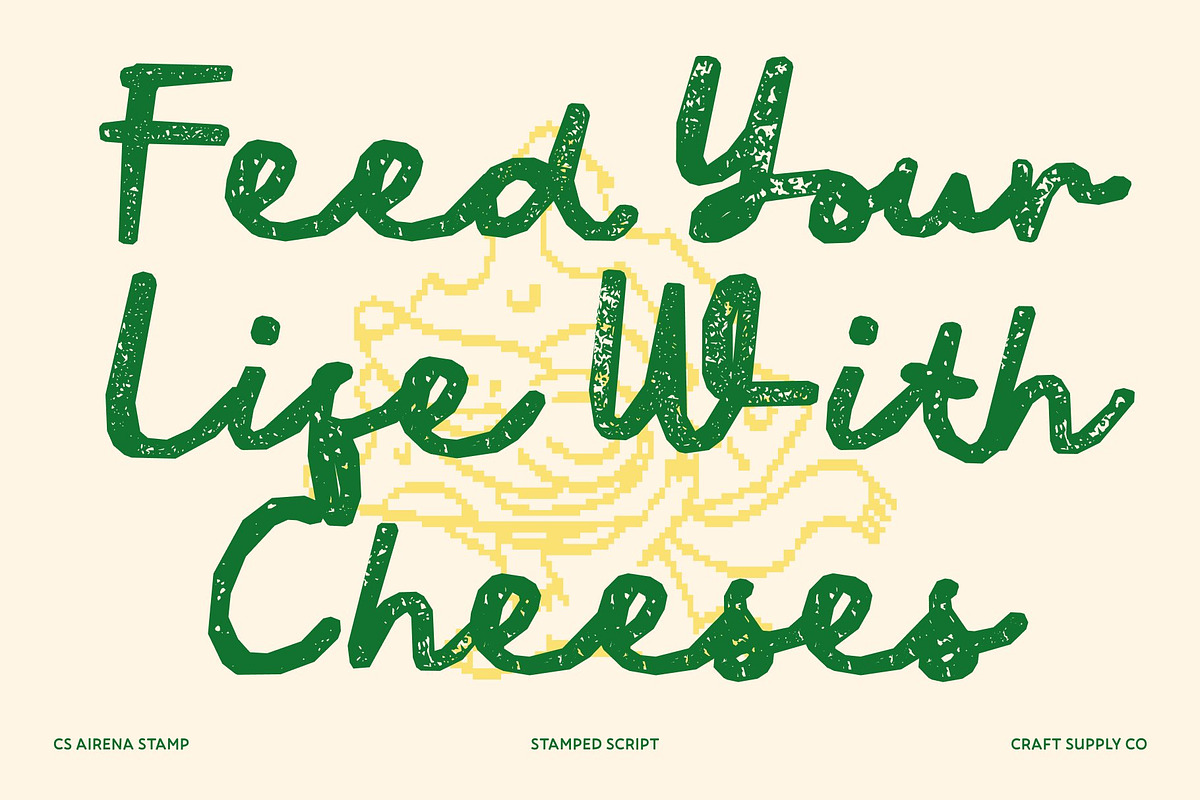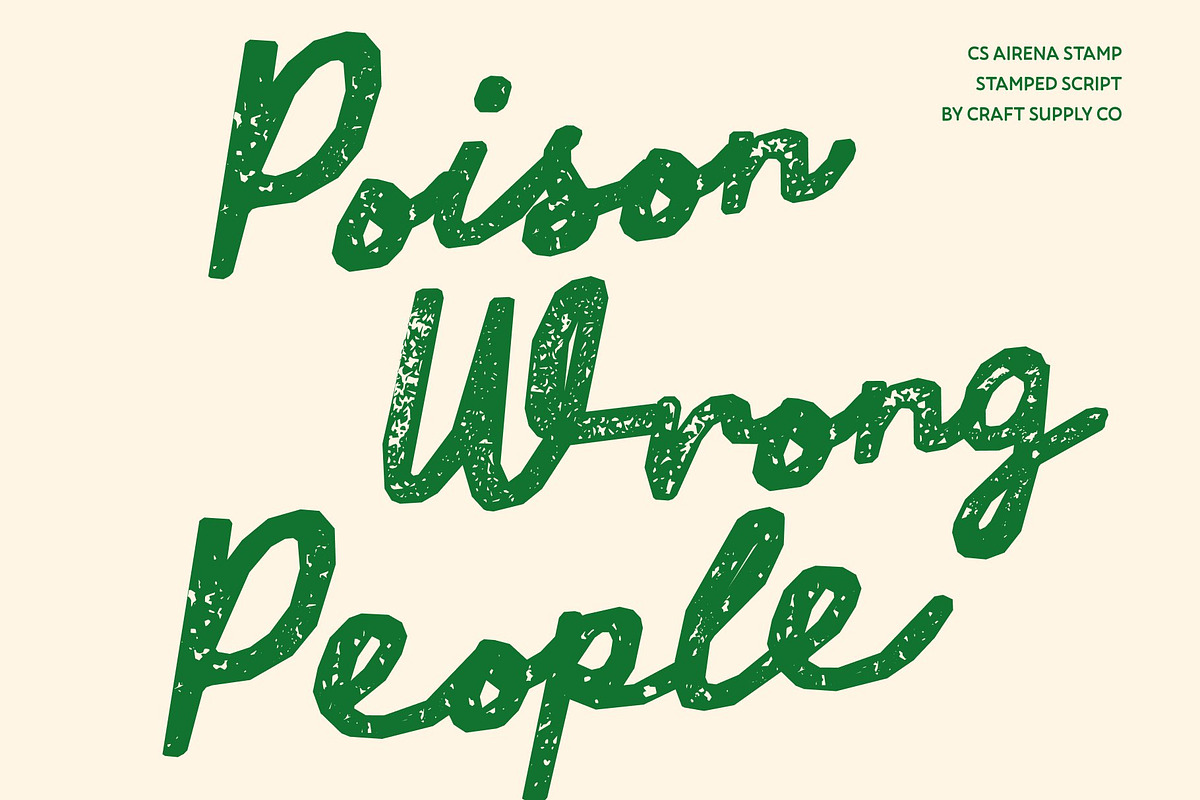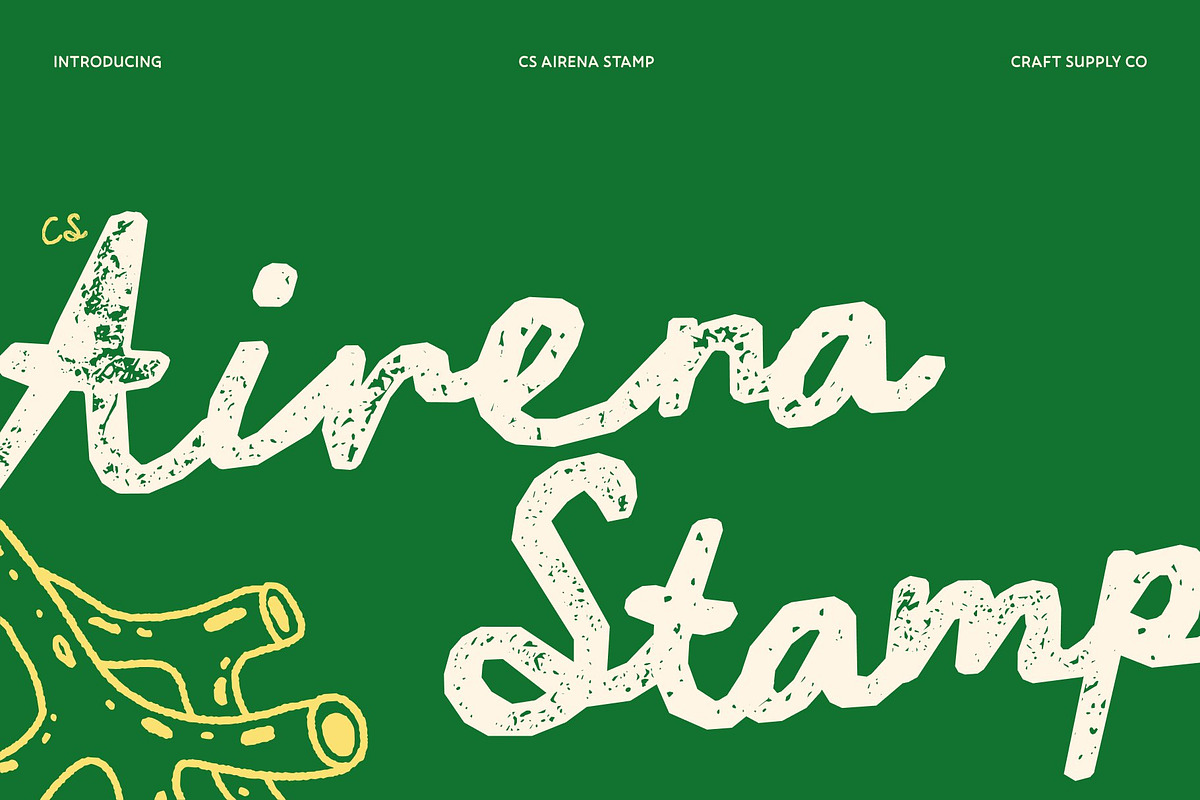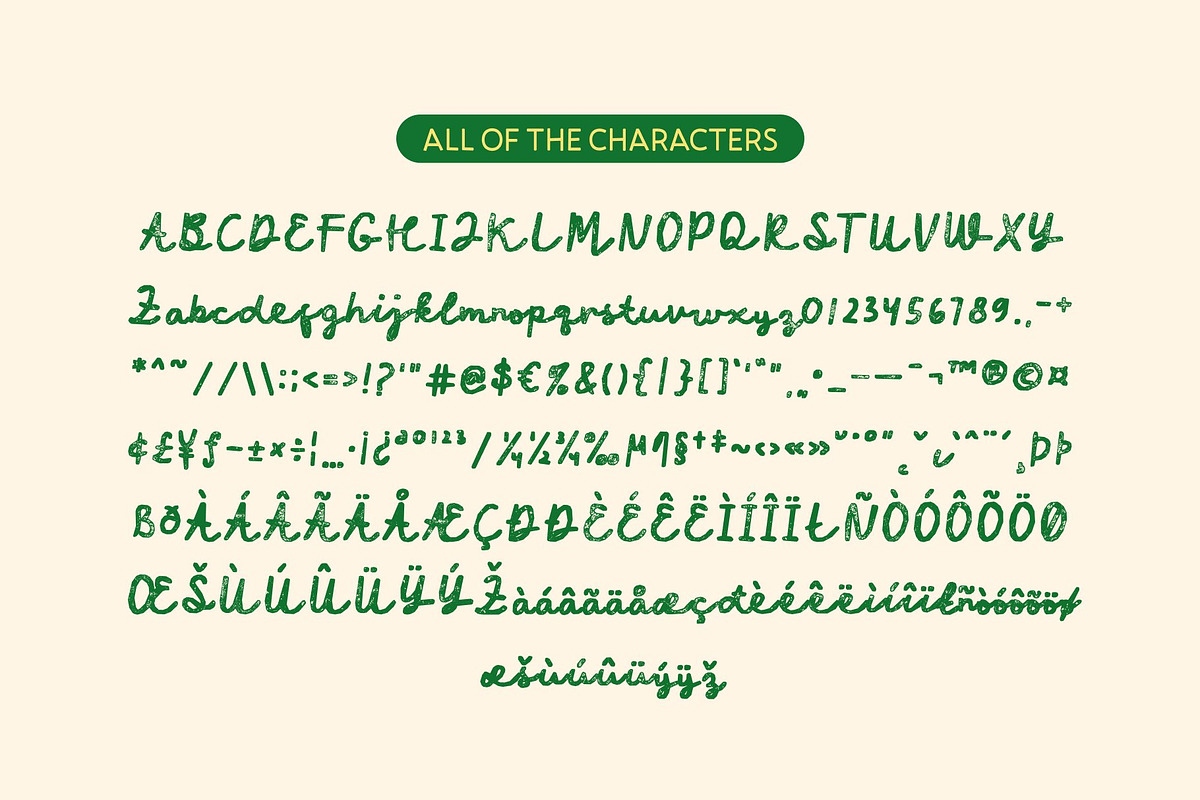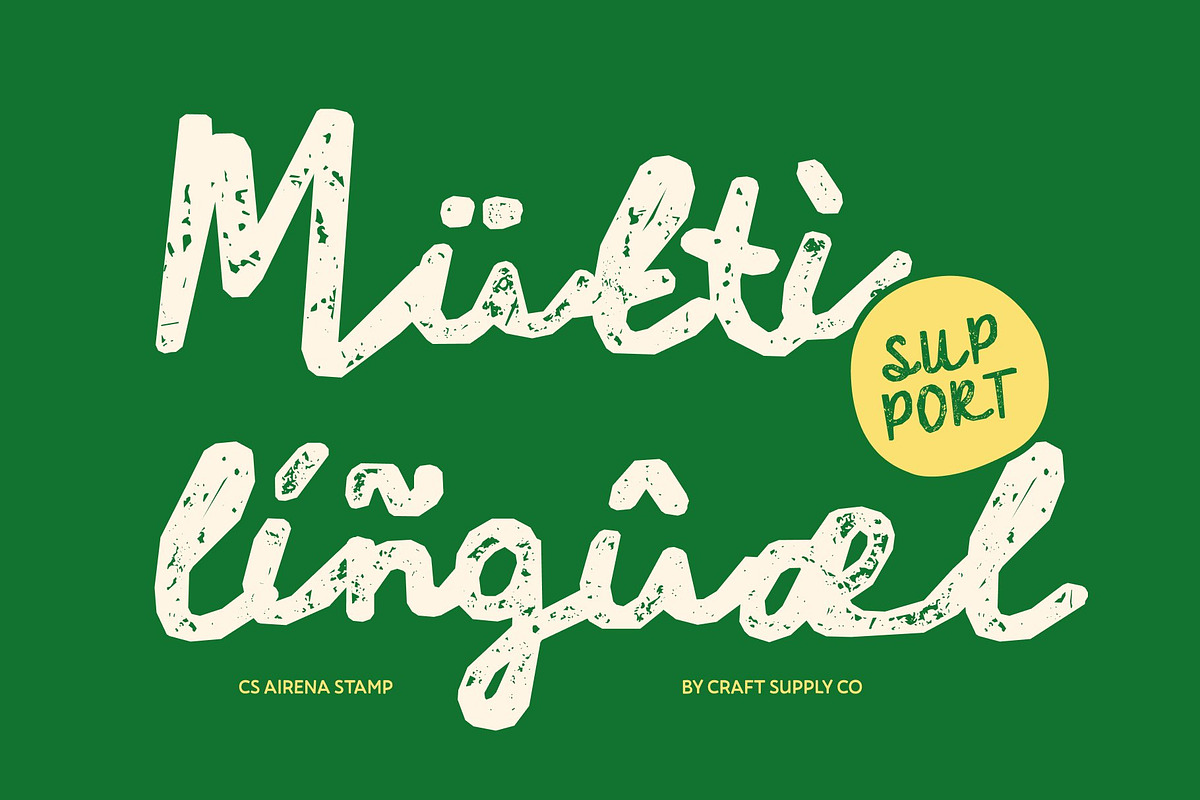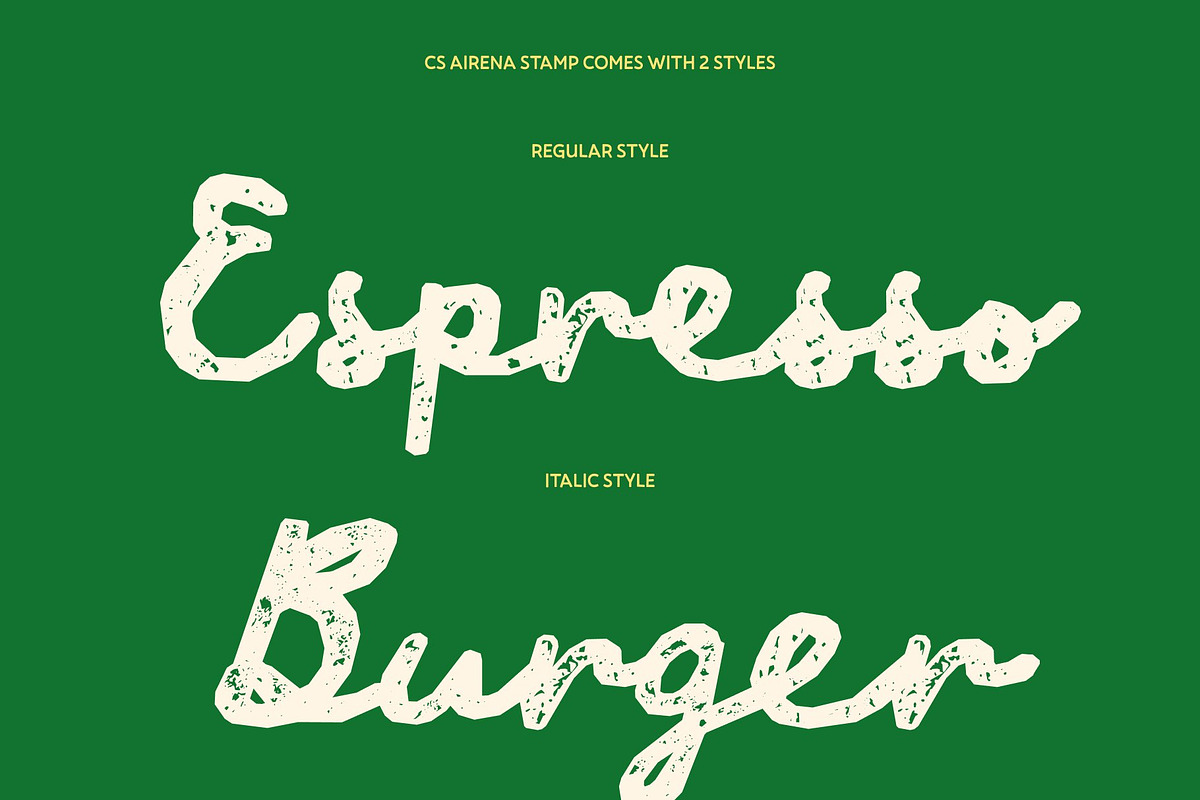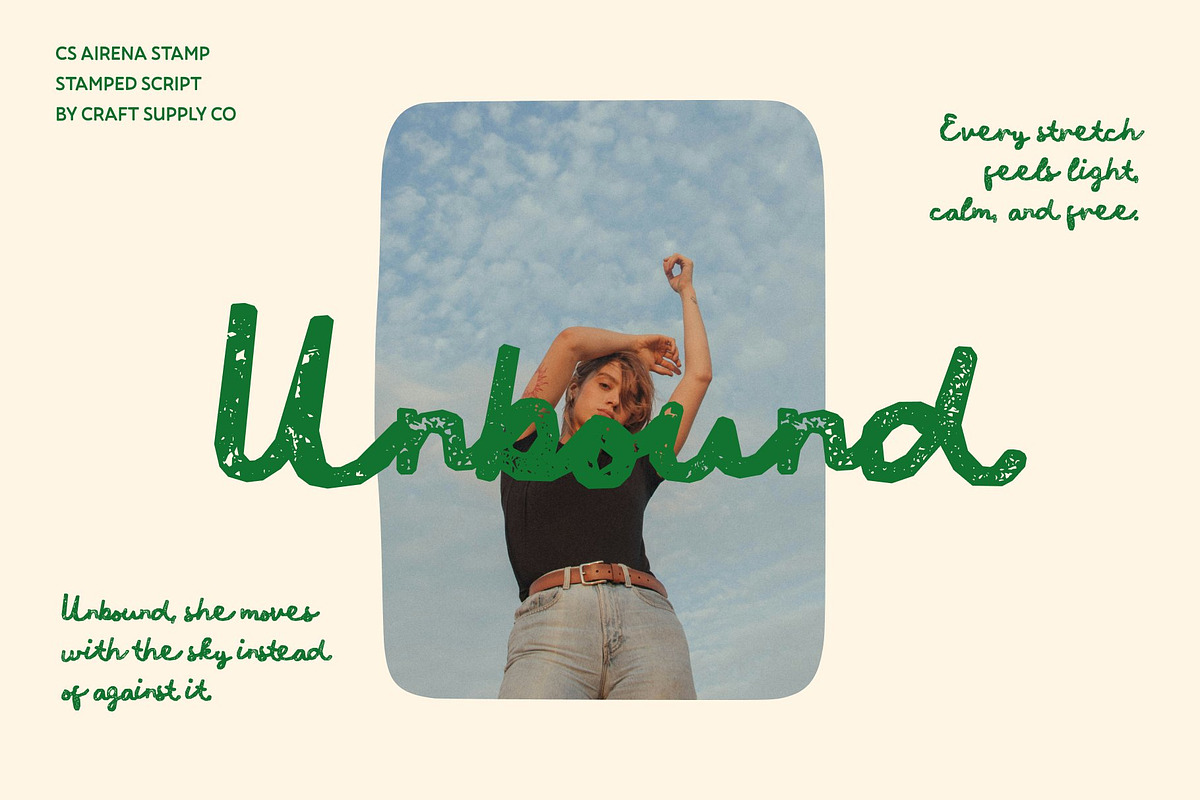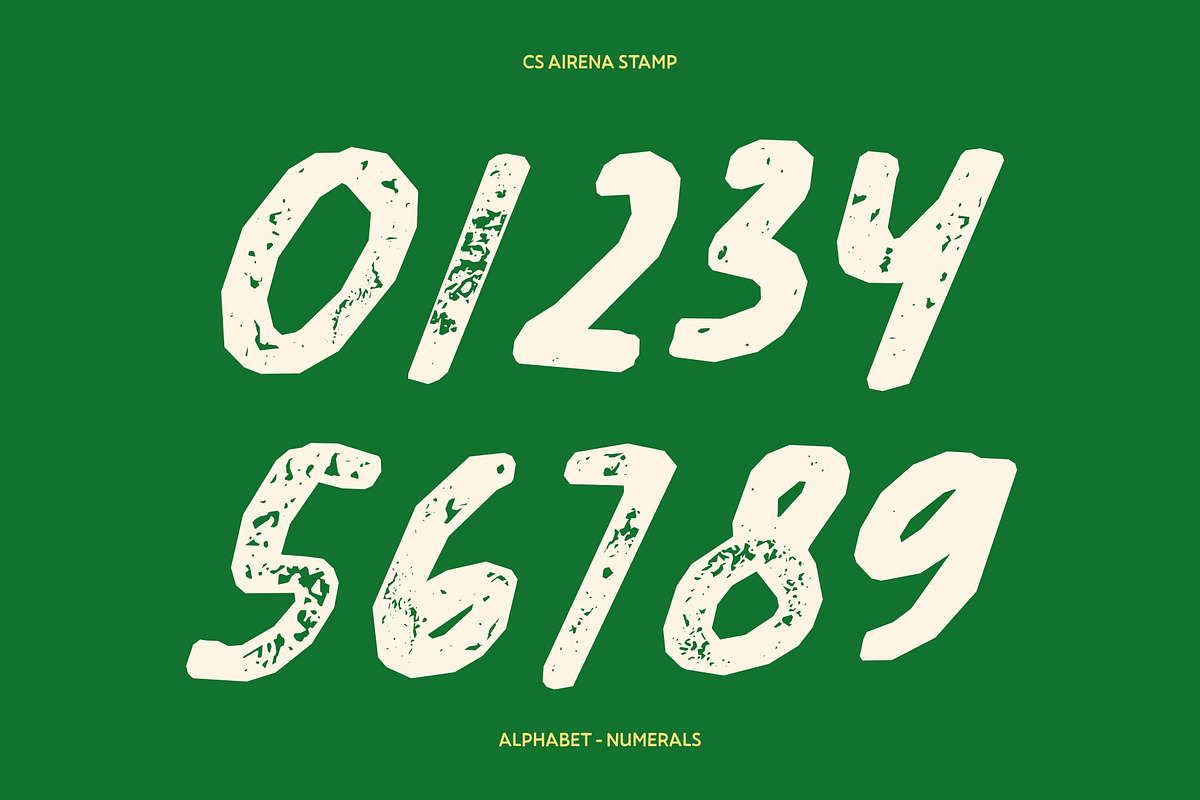
CS Airena Stamp
CS Airena Stamp – Romantic Script Font with Mediterranean Elegance Graceful Script Strokes with Vintage Charm This is a romantic script font inspired by the flowing beauty of Mediterranean handwriting. Its smooth, sweeping strokes create an elegant rhythm that feels warm, refined, and naturally expressive. Enhanced with a stamp effect, the font gains a vintage character and artistic texture, giving each letter an aged, handcrafted appearance that feels timeless and soulful.
Mediterranean Romance with Artistic Texture Infused with coastal elegance and sunlit romance, this font carries a soft Mediterranean spirit that feels both intimate and sophisticated. The gentle loops and fluid connections are complemented by subtle texture, evoking old-world charm and traditional craftsmanship. This combination creates a distinctive script style that feels emotional, nostalgic, and visually rich.
Luxury Appeal for Branding and Packaging This font is ideal for premium branding, luxury packaging, and artisanal product designs. Its elegant curves and textured finish communicate exclusivity and authenticity, making it perfect for fashion labels, beauty brands, handmade goods, and boutique identities. Whether applied to logos, labels, or taglines, the font adds depth, warmth, and refined storytelling.
Perfect for Weddings and Elegant Print Designs With its romantic flow and vintage-stamped character, this font shines in wedding invitations, event stationery, and refined print designs. It brings an intimate, classic atmosphere to announcements, greeting cards, and decorative layouts capturing the beauty of tradition with a touch of Mediterranean elegance.